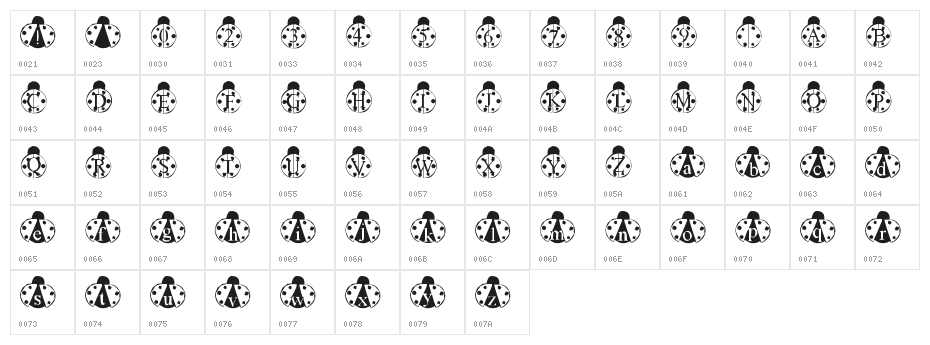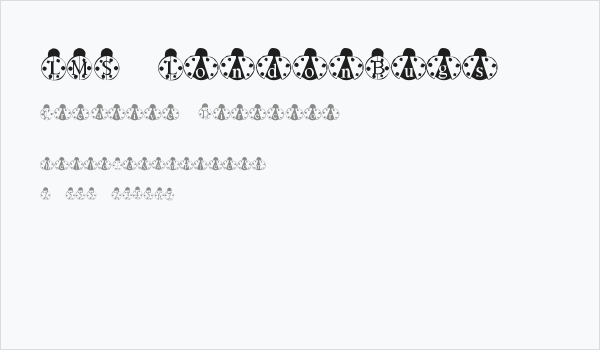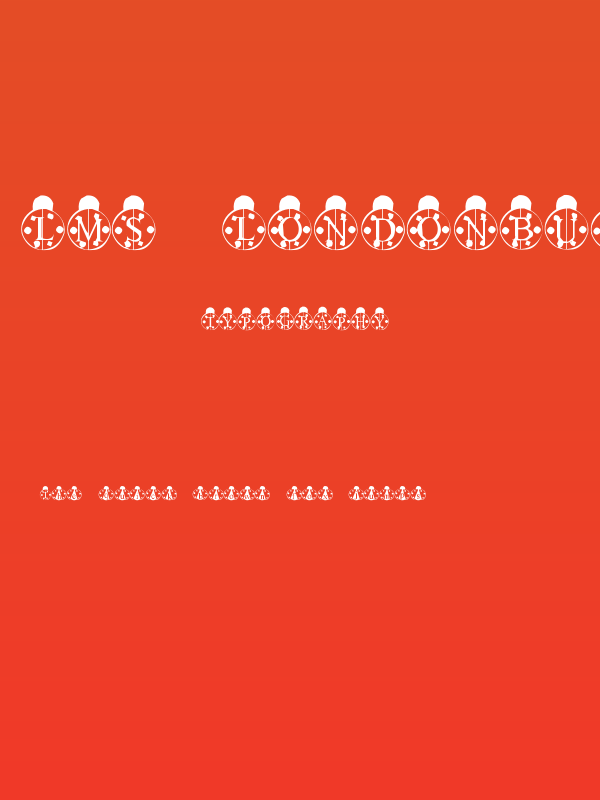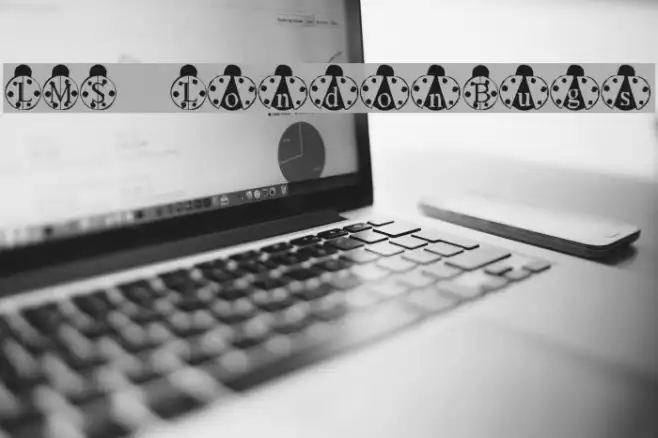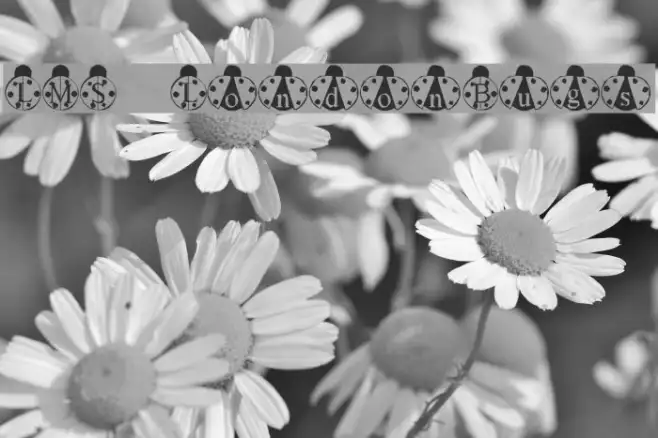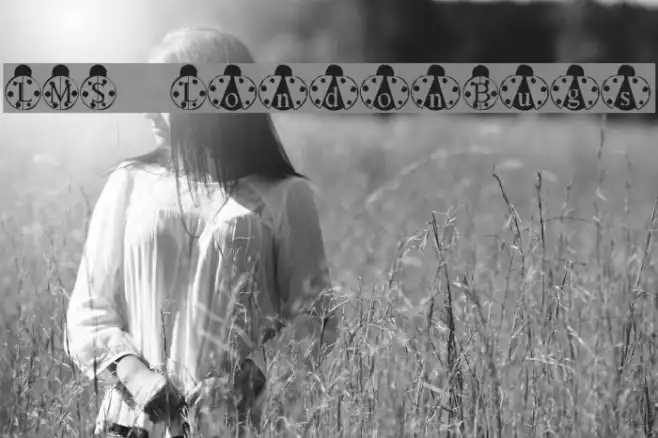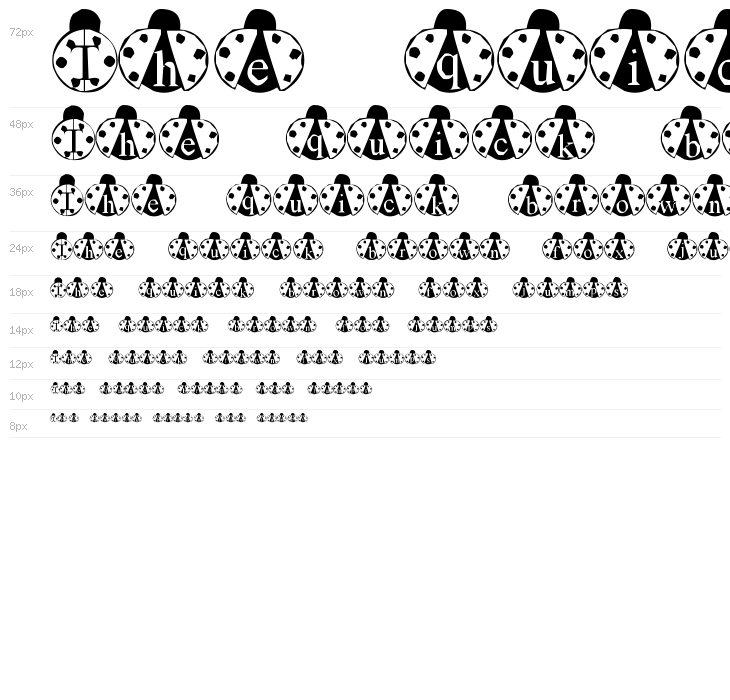
LMS LondonBugs Font
LMS LondonBugs Description
This whimsical and playful font features characters enclosed within ladybug shapes, each letter and number creatively integrated into the body of the insect. The design is decorative, with each character maintaining a consistent circular form, adorned with spots that mimic a ladybug's natural pattern. The font is highly stylized, offering a unique and eye-catching appearance that is both fun and engaging. Its distinct style makes it suitable for projects that require a touch of creativity and charm, particularly those aimed at children or nature-themed events.
| Use Case | Logos, Posters, Children's materials |
| Proposed Projects | Ideal for children's books, educational materials, nature-themed event posters, and playful branding. |